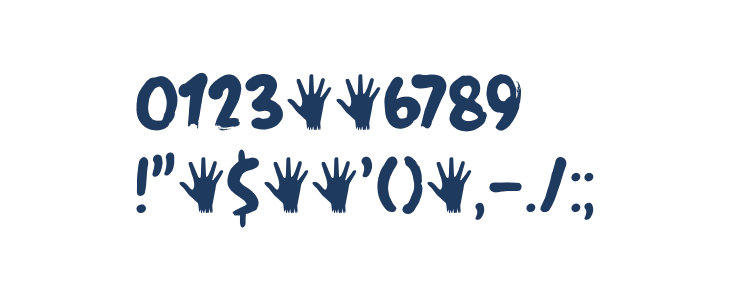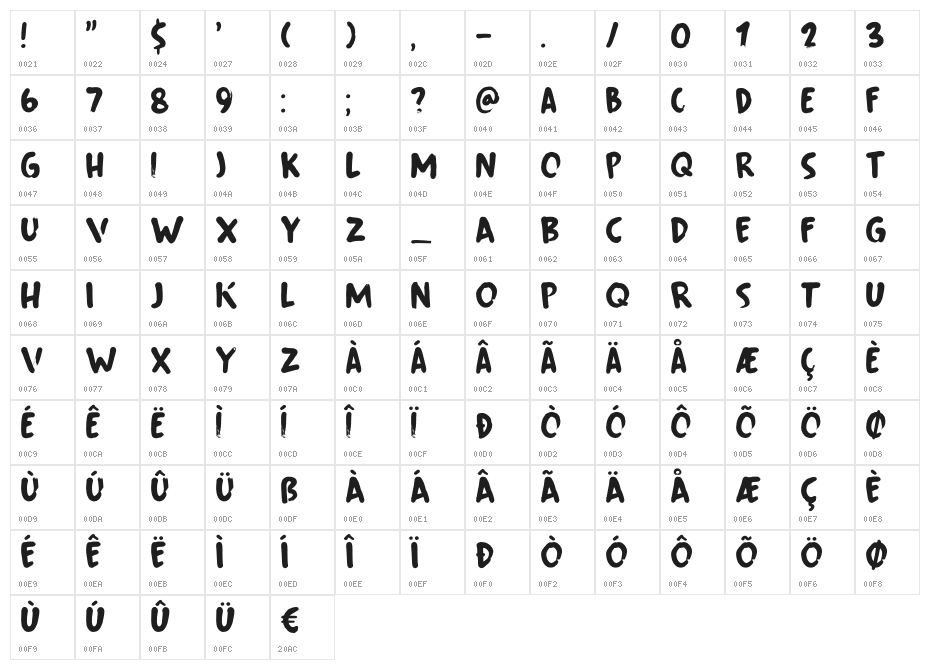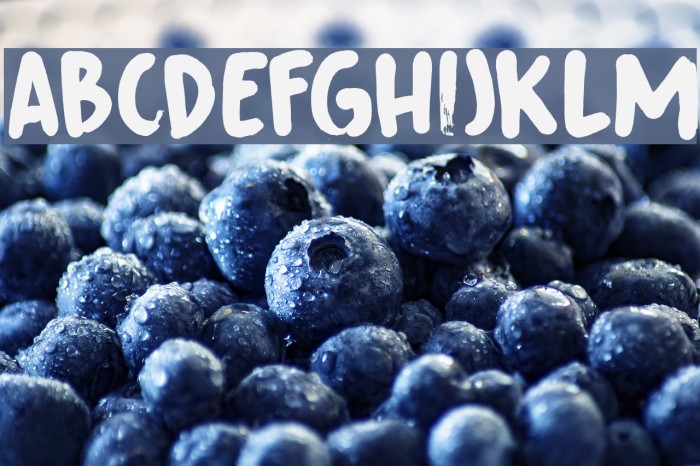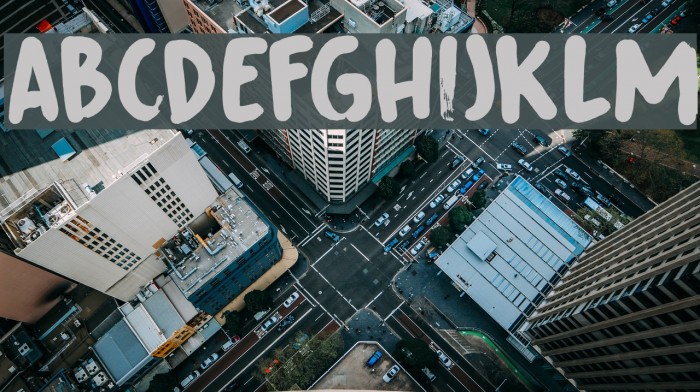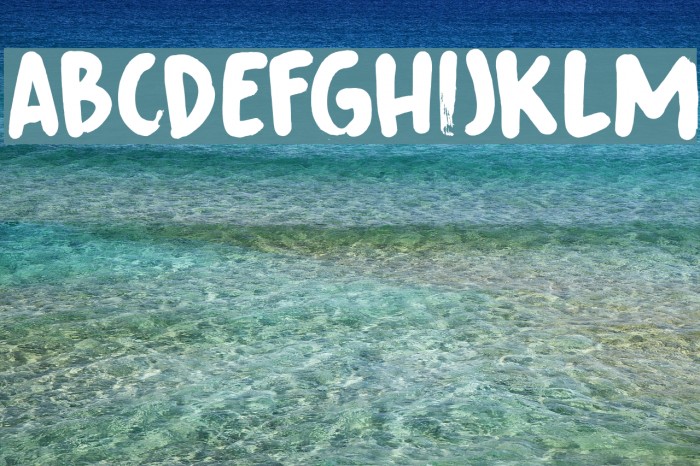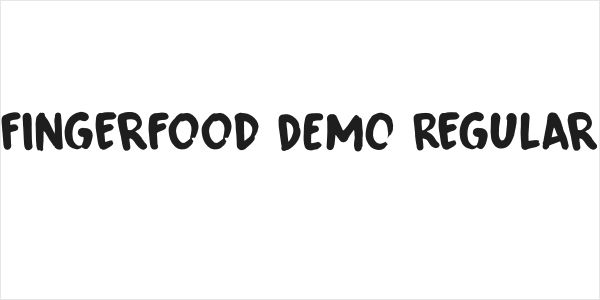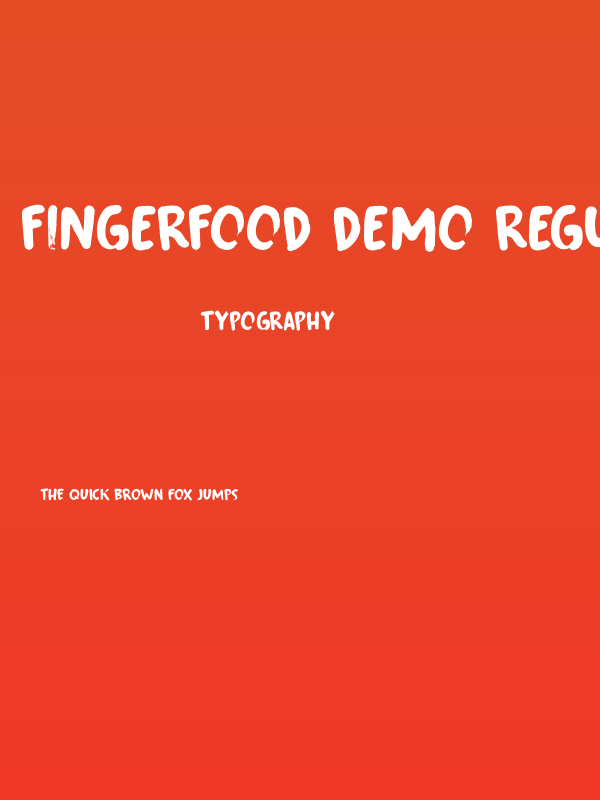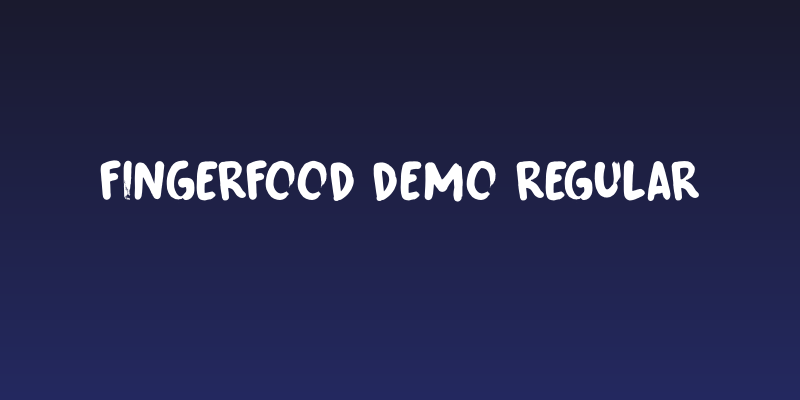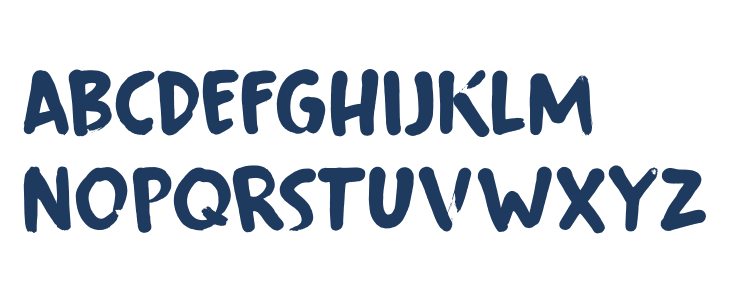
Fingerfood DEMO Regular Font
Fingerfood DEMO Regular Description
This font features a playful and bold design with a hand-drawn aesthetic. The characters are thick and rounded, giving them a friendly and approachable appearance. The strokes are uneven, adding a sense of dynamism and spontaneity. The inclusion of hand symbols as special characters enhances its whimsical nature. This font is ideal for projects that require a fun and informal touch, such as children's books, posters, or event invitations. Its unique style makes it stand out, ensuring that any text set in this font will capture attention.